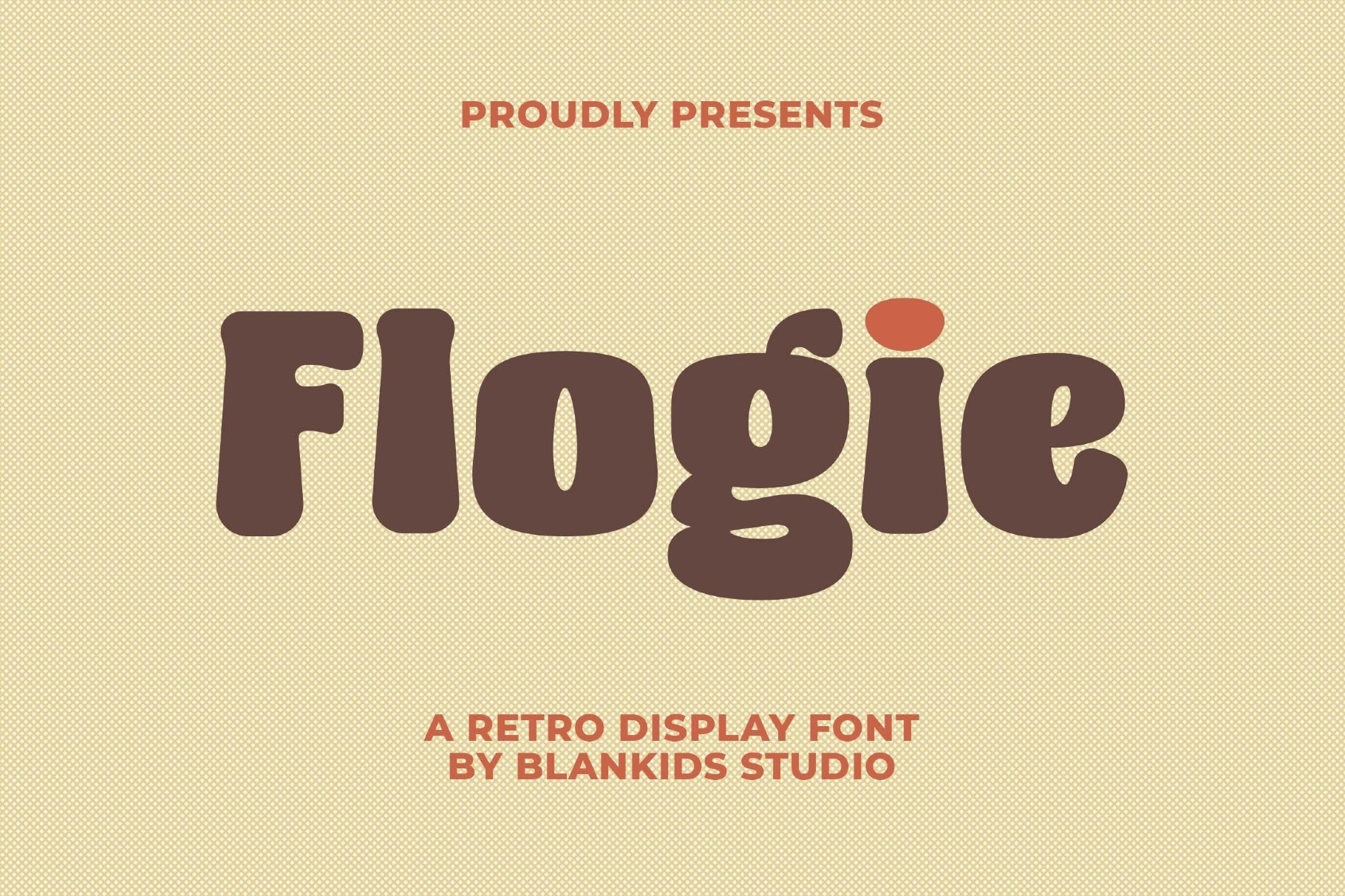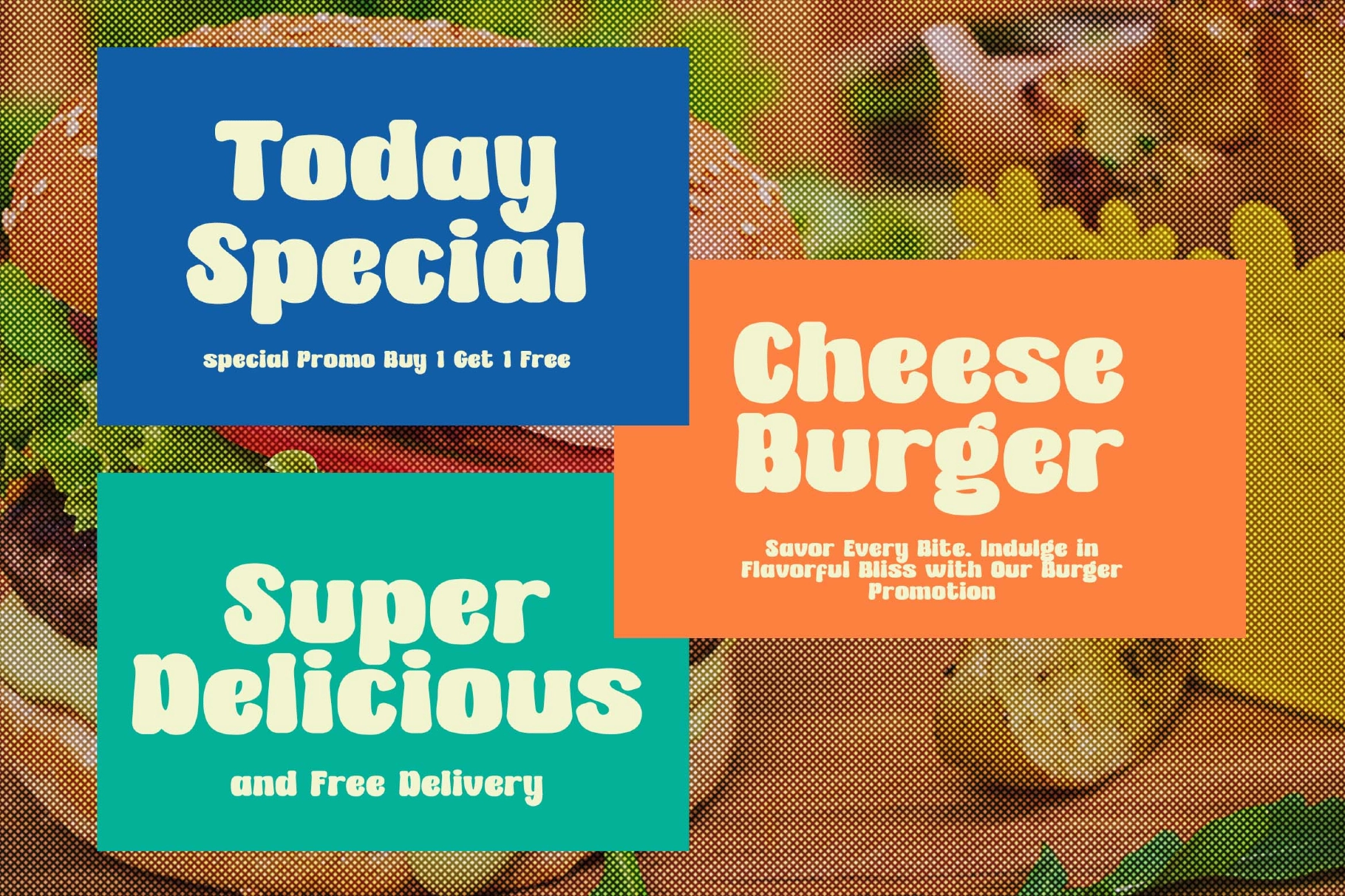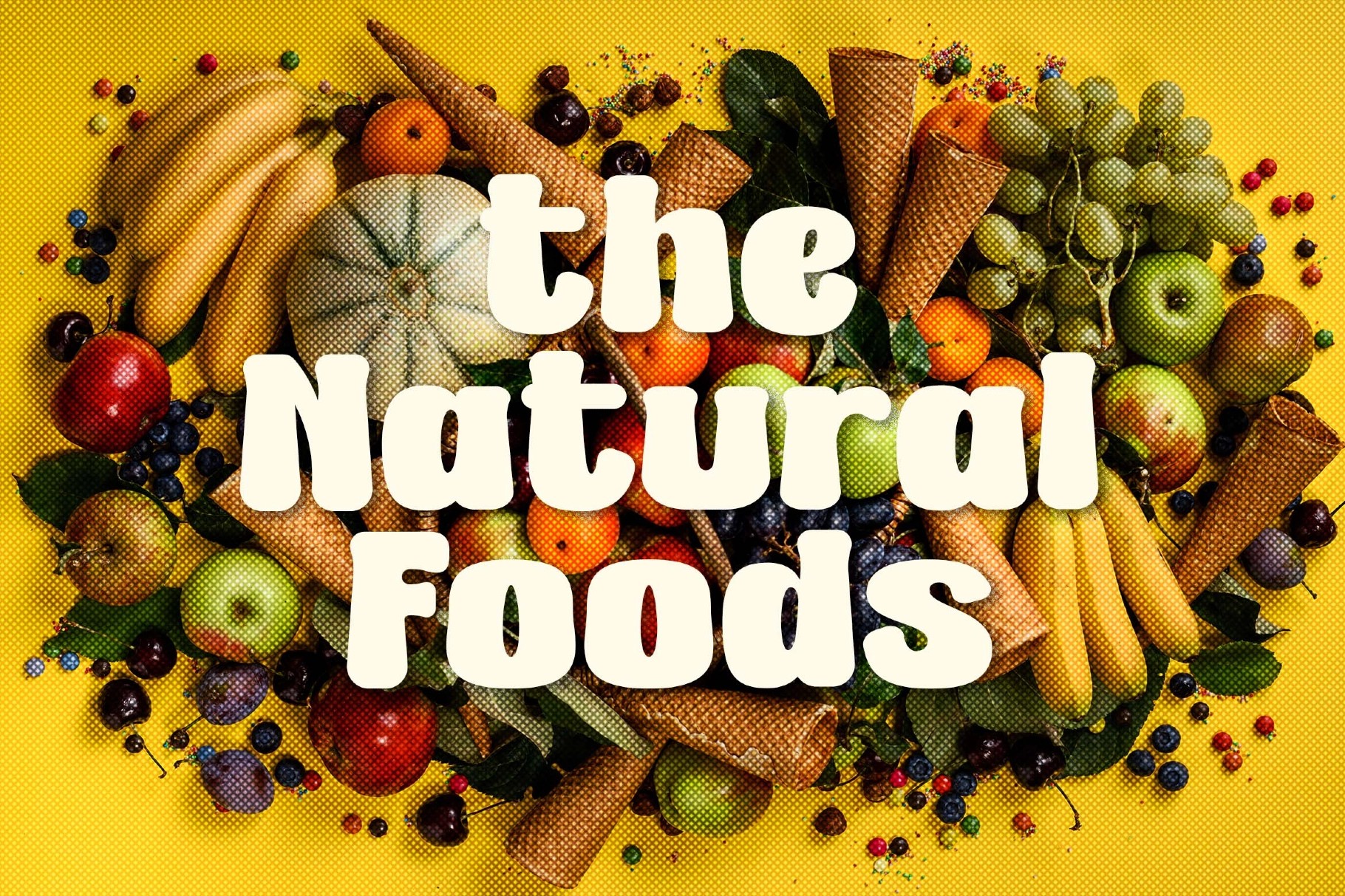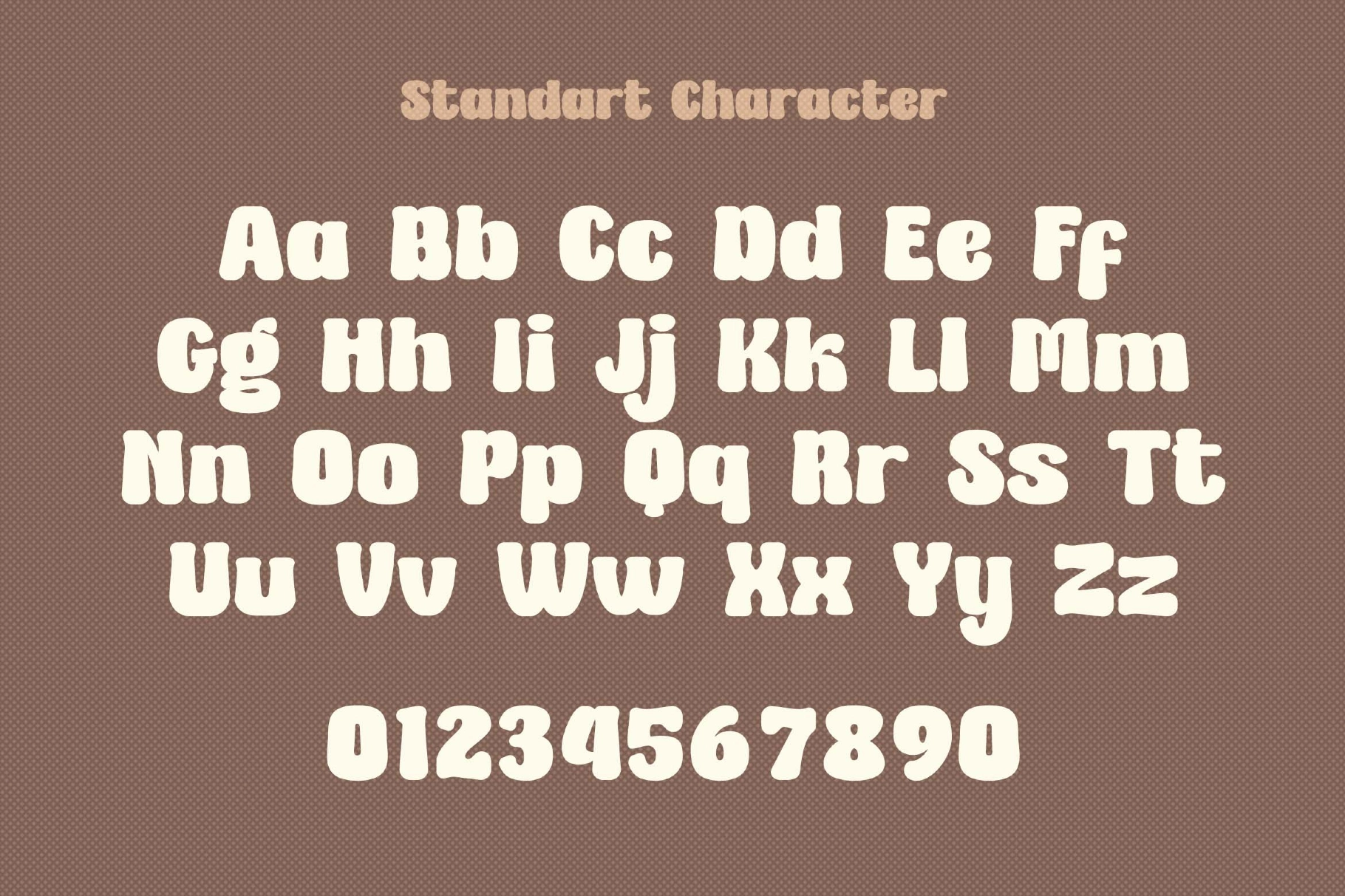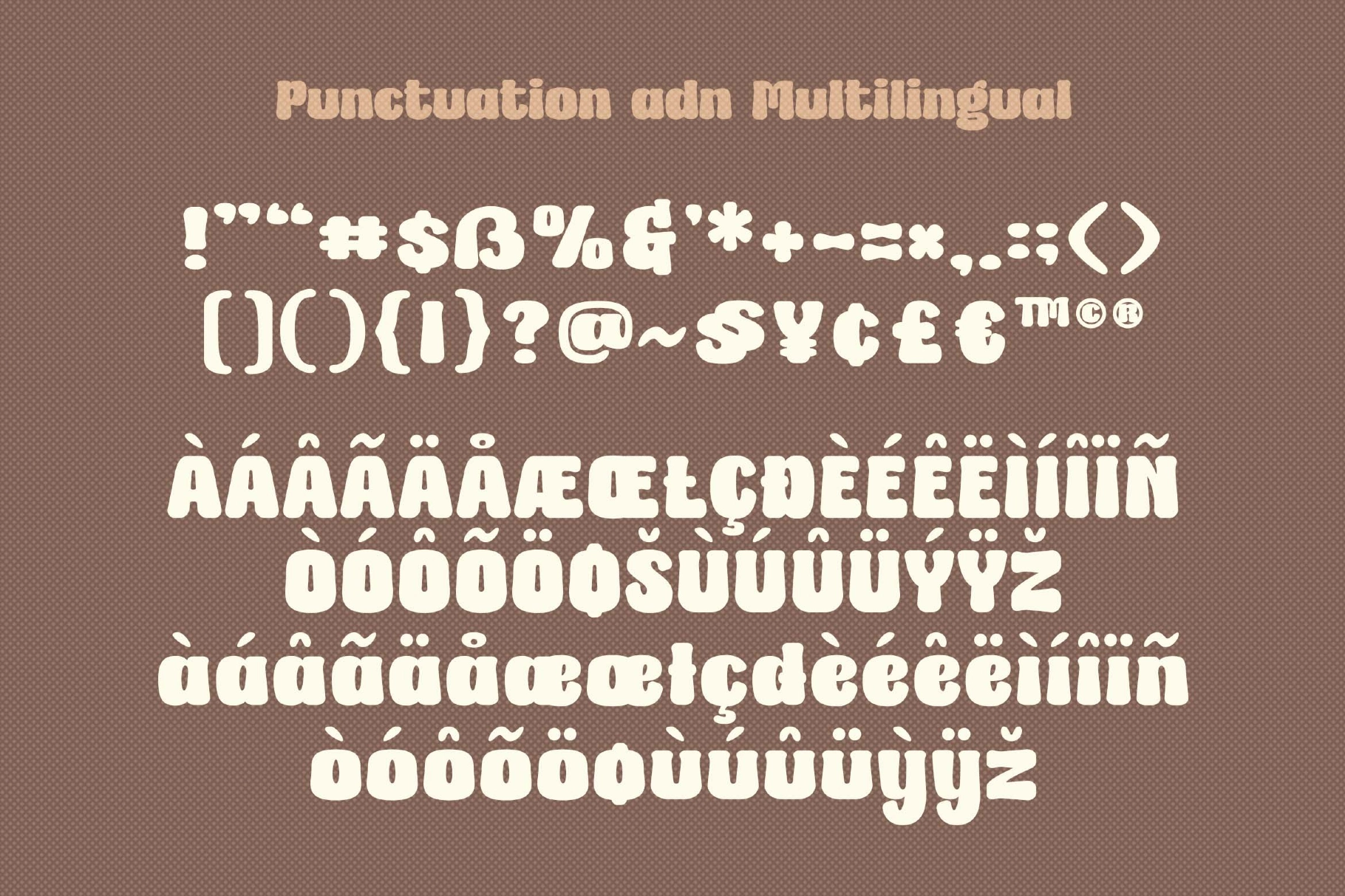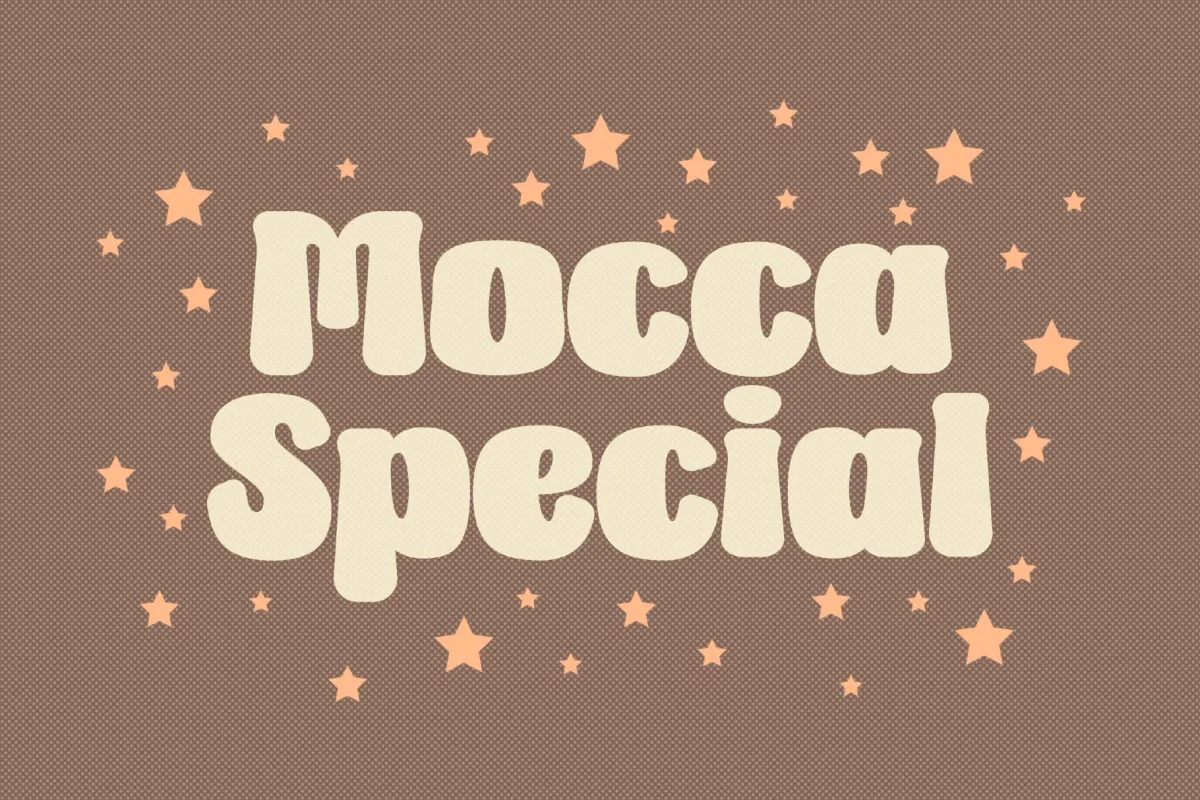
Flogie Nostalgic Font
Flogie Nostalgic Font – A Perfect Blend of Nostalgia and Style. A stylish retro typeface inspired by the bold and playful aesthetics of the 1970s and 1980s. This unique blend of serif and sans-serif elements gives your designs a warm, nostalgic charm while maintaining a modern, versatile edge.
With smooth curves, thick lines, and rounded forms, Flogie captures the essence of vintage typography and transforms it into a timeless design tool. Ideal for logos, packaging, posters, branding materials, and creative projects that need a touch of retro elegance, this font adds personality and authenticity to every layout.
Perfect for designers who want to create standout visuals with a blend of retro energy and modern sophistication.